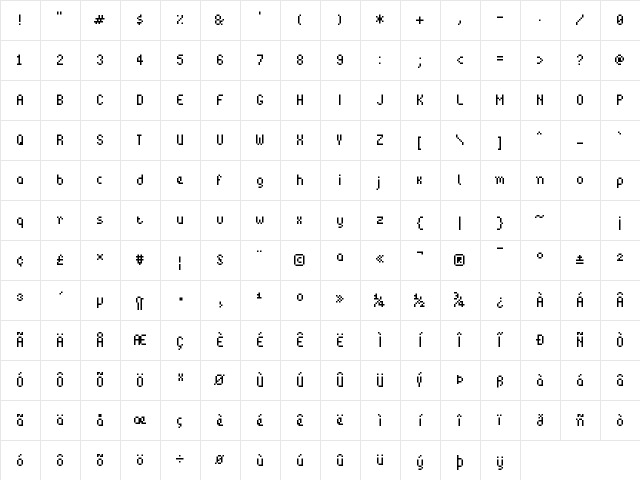
BitPotionExt Medium
Design Context for BitPotionExt Typeface
BitPotionExt takes a measured approach to typography — its balanced proportions and neutral character make it a reliable workhorse for both digital and print work.